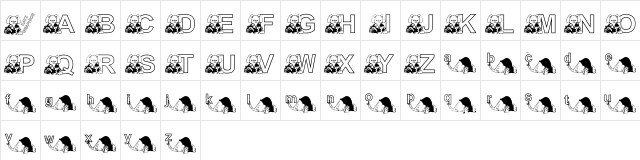
KG ELEBABY Regular
Design Context for KG ELEBABY Typeface
KG ELEBABY is a composed and adaptable typeface that performs quietly and consistently across a wide range of design contexts.